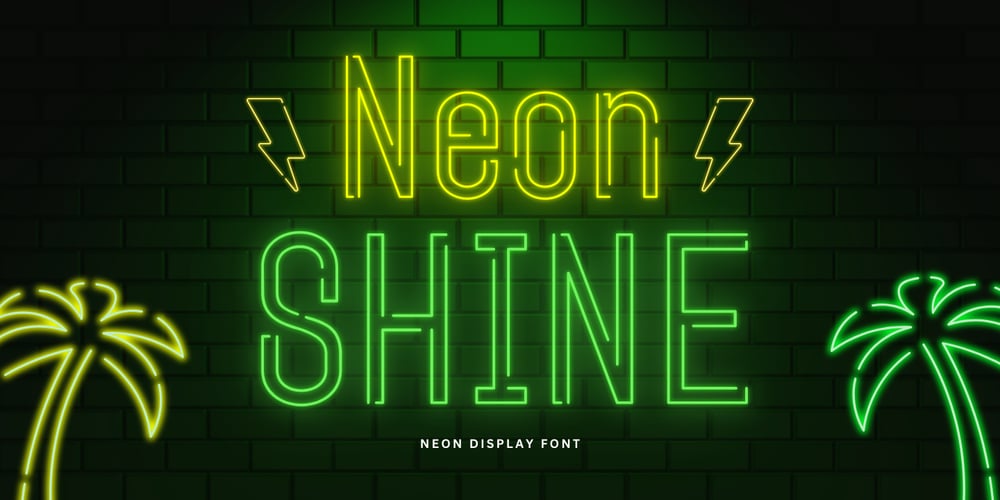
Neon Shine
Neon Shine font
Neon Shine Font Family was designed by Muhamad Yusron Billah and published by Sronstudio. Neon Shine contains 2 styles and family package options. Neon Shine is a vibrant neon font that captures the glow and energy of city lights. Perfect for signs, posters, and designs needing a bold, electric touch, Neon Shine brings a modern, luminous vibe to any project. Let your work light up with Neon Shine!Included:- Regular & Italic Style- Numeral & Punctuation- PUA Encoded- Multilingual support- Simple Installation- Work both on Mac and WindowsThank you very much ๐Ÿ™‚